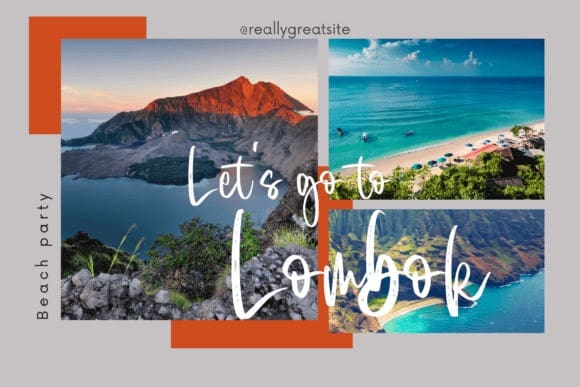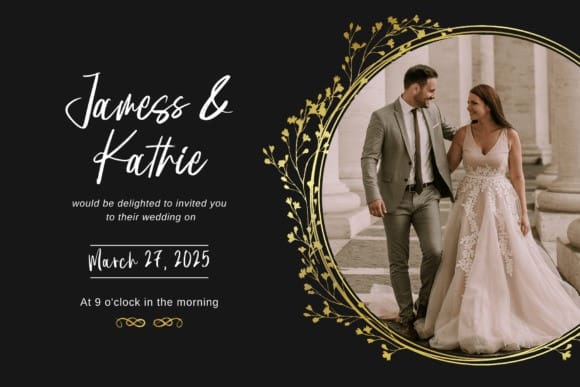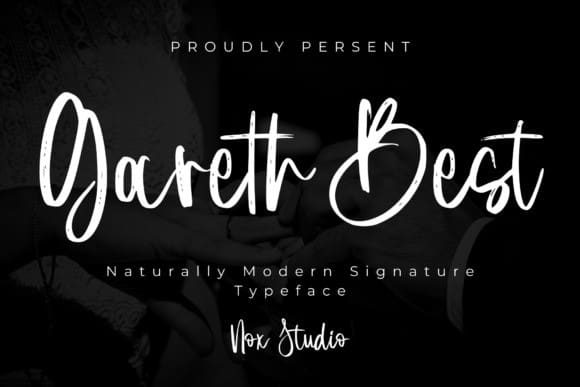
Gareth Best Font
Gareth Best Font – an exceptionally unique signature font precisely crafted to satiate diverse design requirements. Displaying an organic linearity, it masterfully emulates the natural rhythm and sophistication of a human hand. Gareth Best genuinely embodies the authenticity and individualistic flair of a handwritten script. It infuses a certain intimacy and raw creativity, enhancing the allure of your designs. Immerse your audience in the charismatic presence of GarethBest.